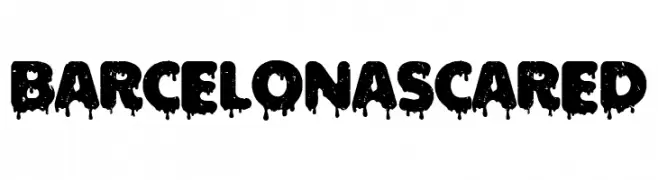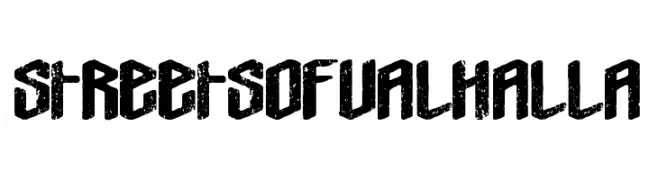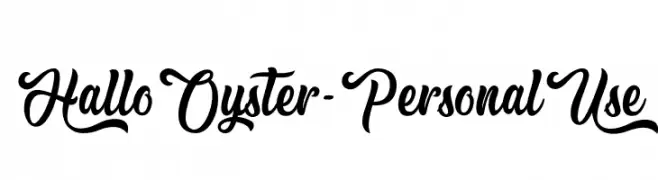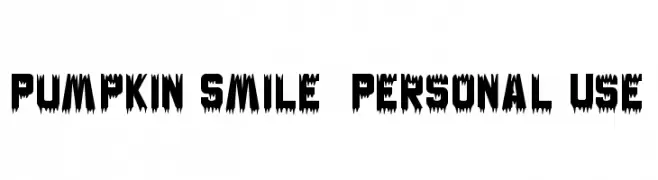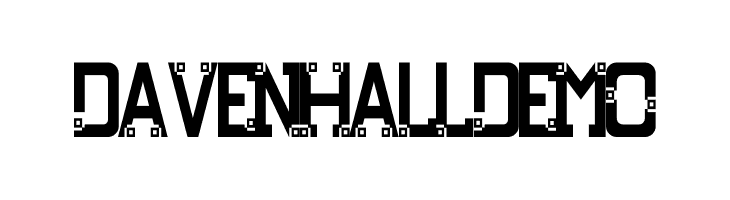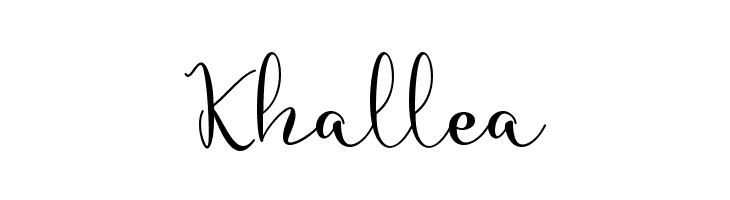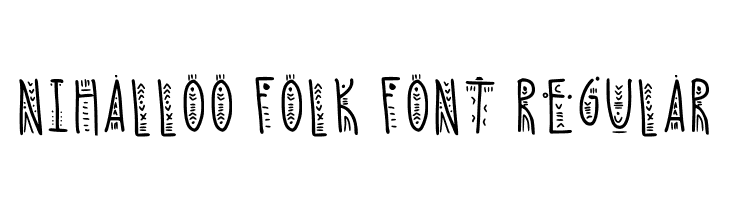
A bold, dripping font perfect for horror themes and Halloween designs.
A bold, dripping font perfect for horror and Halloween themes.
A rugged, distressed font with a bold, vintage appearance.
A playful and whimsical script font with flowing, cursive letters.
A decorative, artistic font with intricate patterns and embellishments.
A playful, rounded font with a casual, handwritten style.
A bold, geometric font with a futuristic, digital aesthetic.
A spooky, jagged font ideal for Halloween themes.
A bold, dripping font perfect for Halloween-themed designs.
A bold, dripping font perfect for horror and Halloween themes.